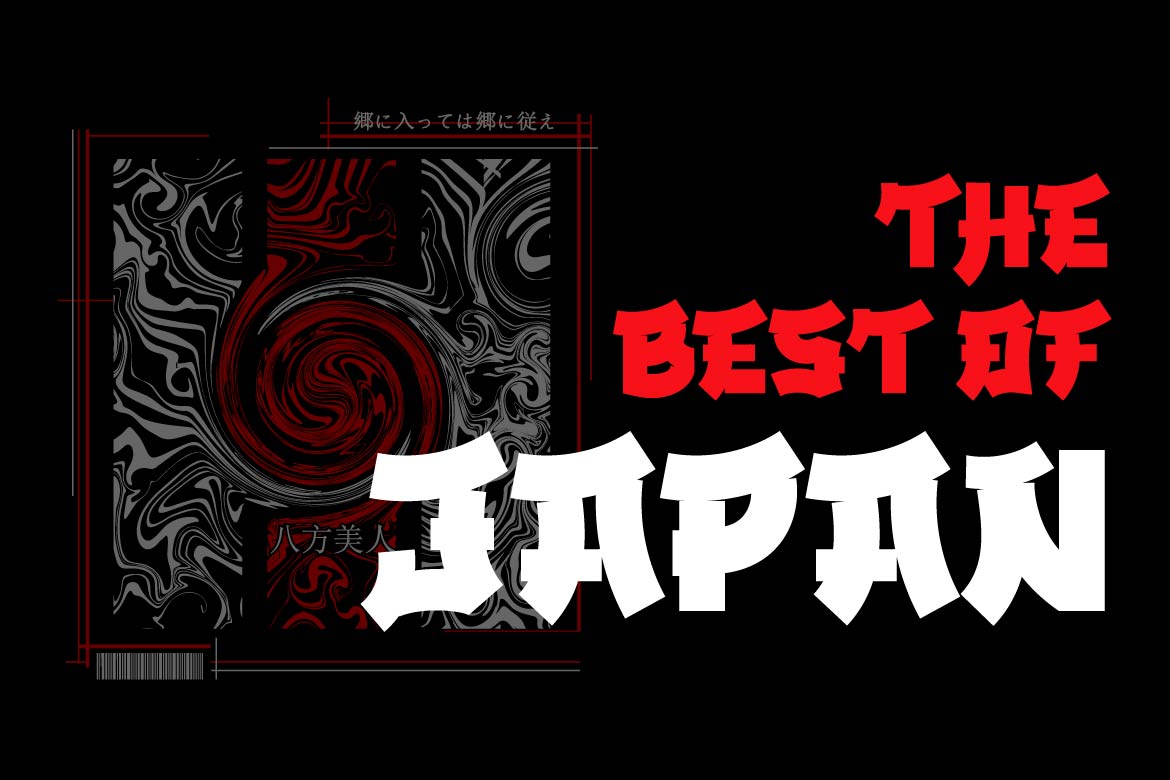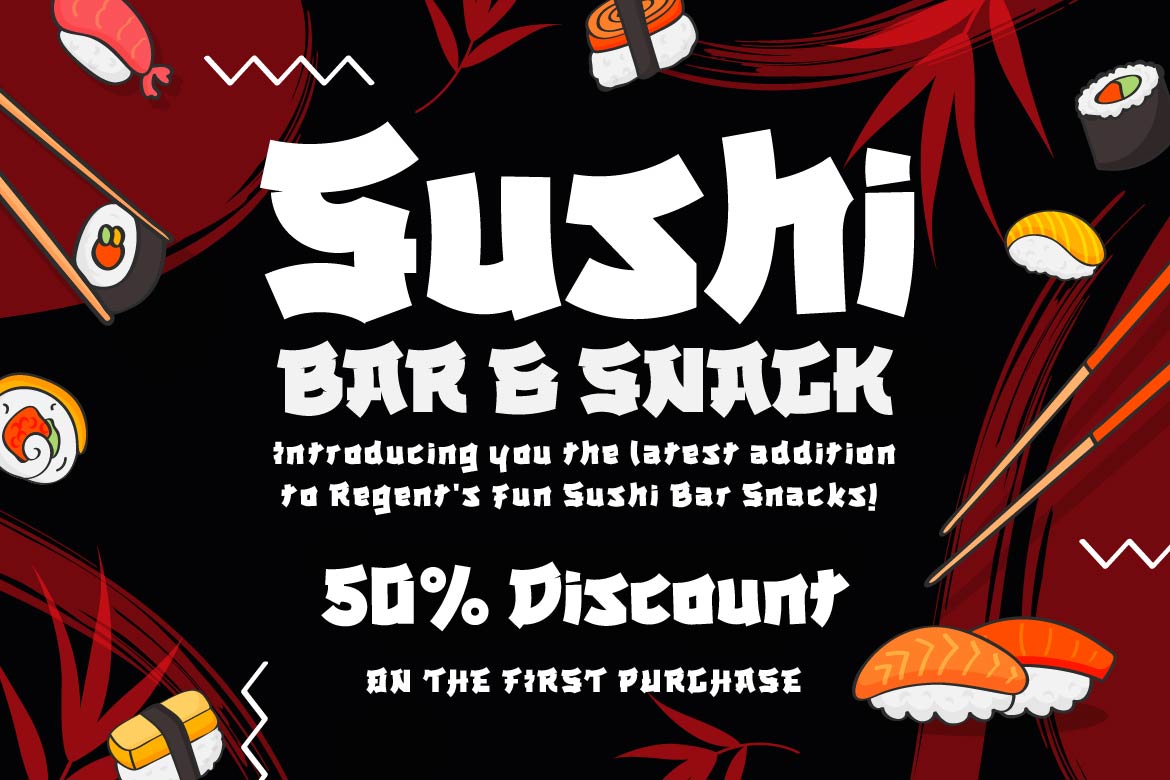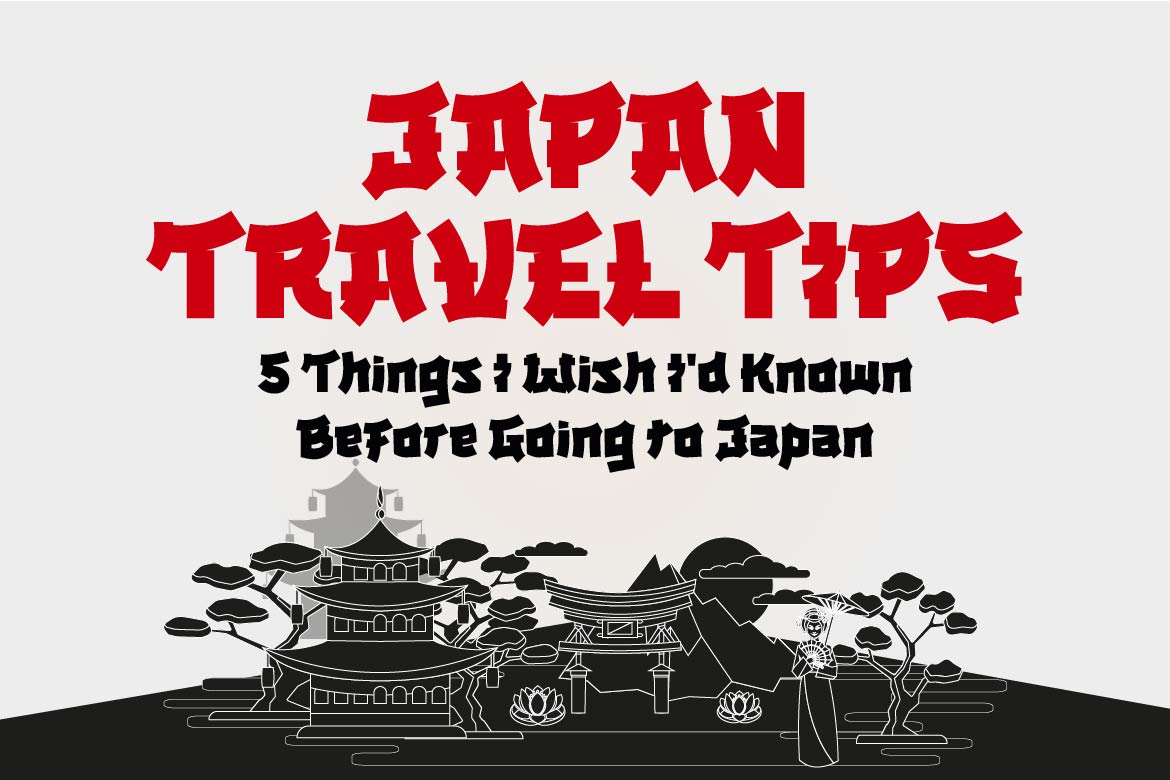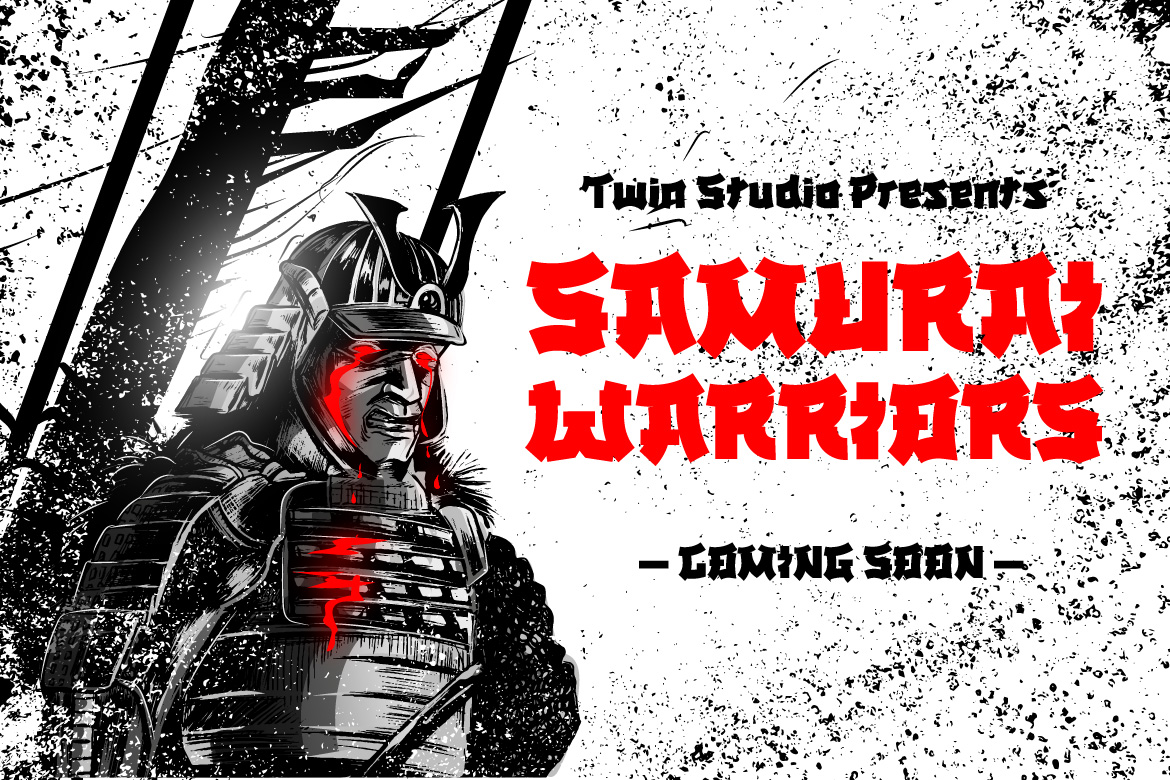
DASEGO Font
DASEGO Display Font
A display typeface with an Asia theme that we made to fulfill the needs of your project with an Asian theme that you may use for projects that can be understood by audiences all over the world.
We created this typeface by paying close attention to the individuality of each letter, abstract while still prioritizing optical harmony, and your project will look stunning with it.
Logotypes, food banners, branding, brochure, posters, movie titles, book titles, quotes, and more may all benefit from this font.